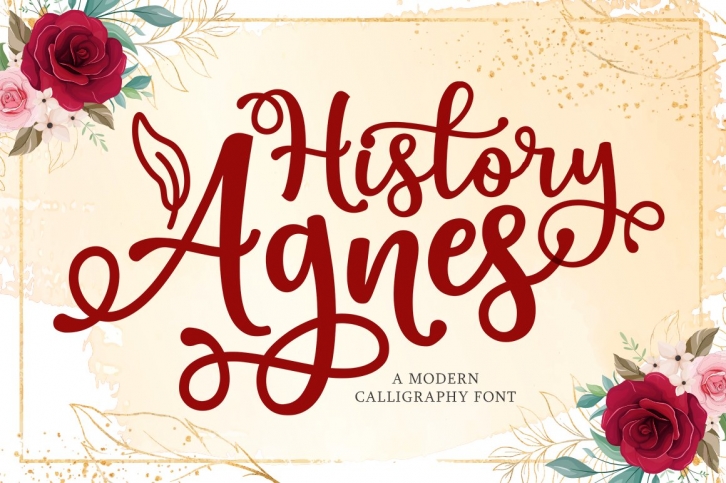
History Agnes is a great font that was designed by Lettersams. Imagine the amount of combinations you can create using this font! The archive is 11.89 MB and it was released on March 3, 2020. History Agnes looks beautiful on wedding invitations, greeting cards, logos, posters, labels, t-shirt designs, logos, business cards and is perfect for use in ink or watercolor works, fashion, magazines, packaging and food menus, children's books and more!